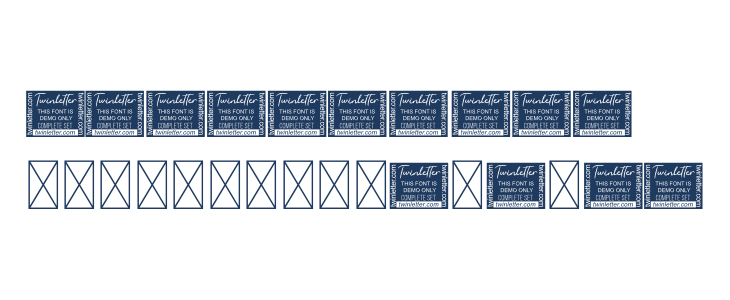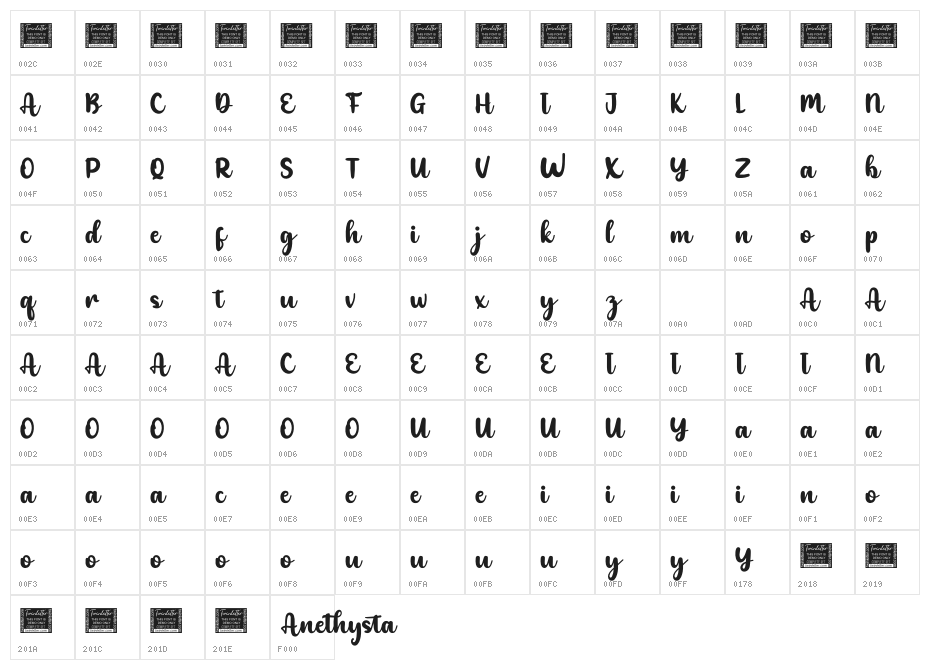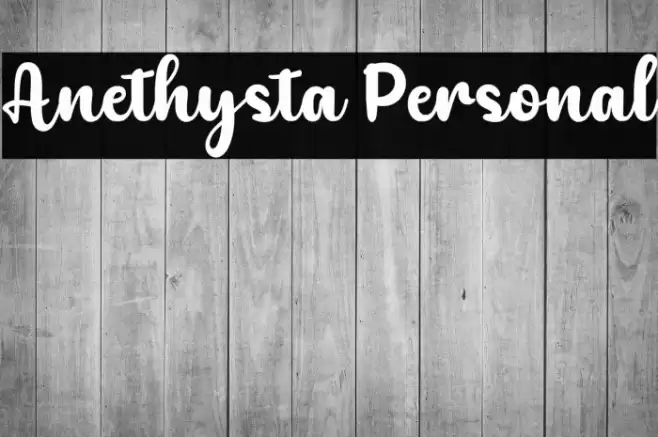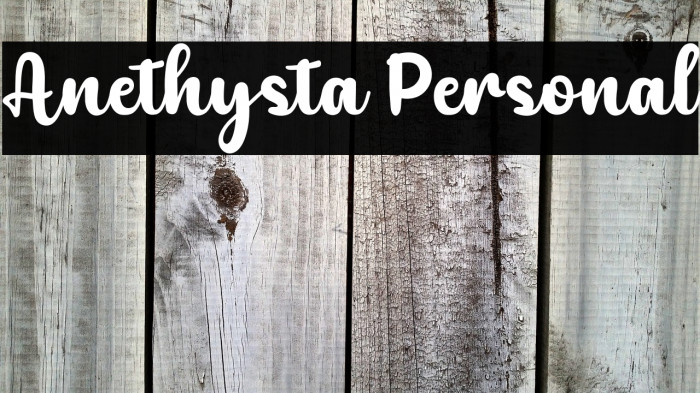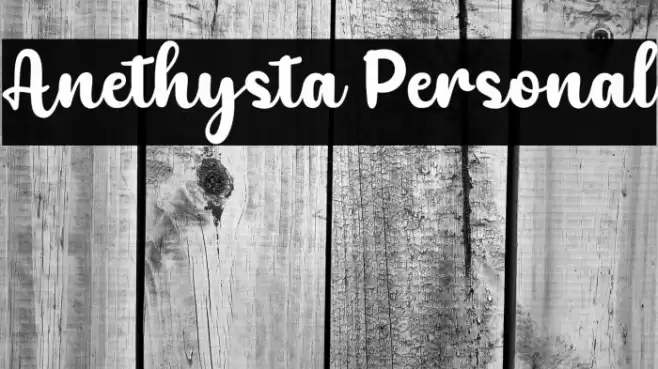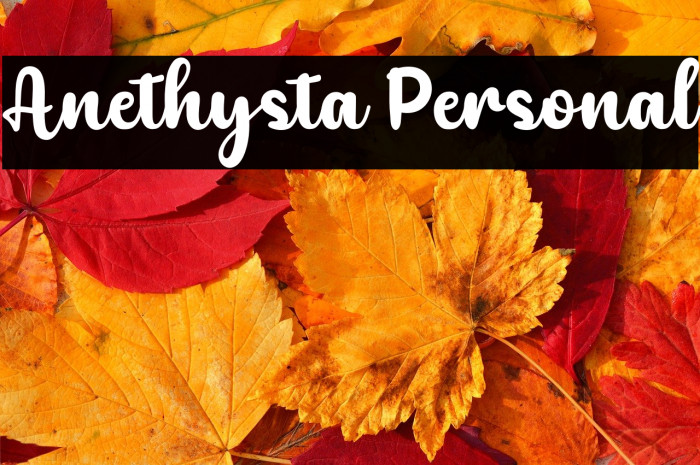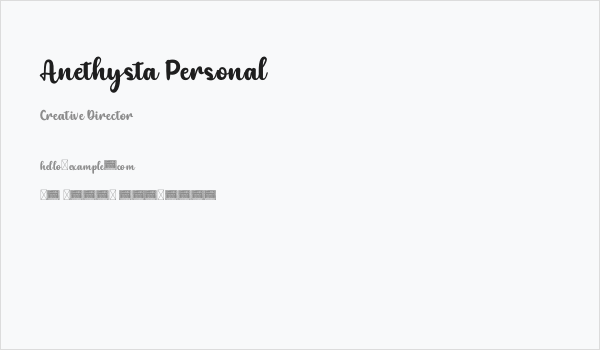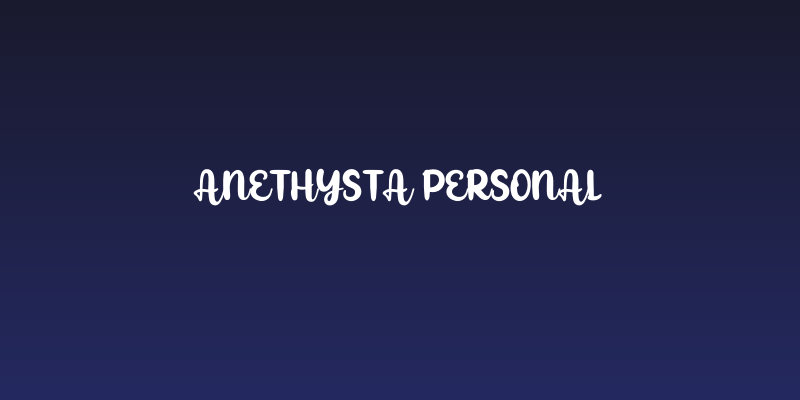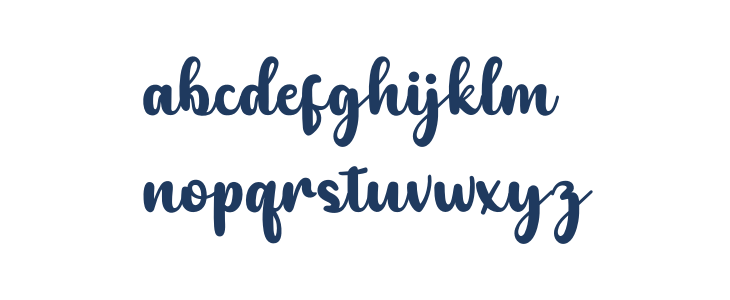
Anethysta Personal Font
Anethysta Personal Description
This font features a bold and flowing script style, characterized by its smooth, connected letters that exude a sense of elegance and creativity. The uppercase letters are prominently styled with a slight flourish, while the lowercase letters maintain a consistent flow, enhancing readability. The font's design is both playful and sophisticated, making it suitable for a variety of creative applications. Its bold weight and smooth curves give it a strong presence, ideal for making a statement in any design project.
| Overall Style | Elegant, Creative |
| Use Case | Logos, Invitations, Headlines |
| Proposed Projects | Ideal for wedding invitations, branding, social media graphics, and creative posters. |